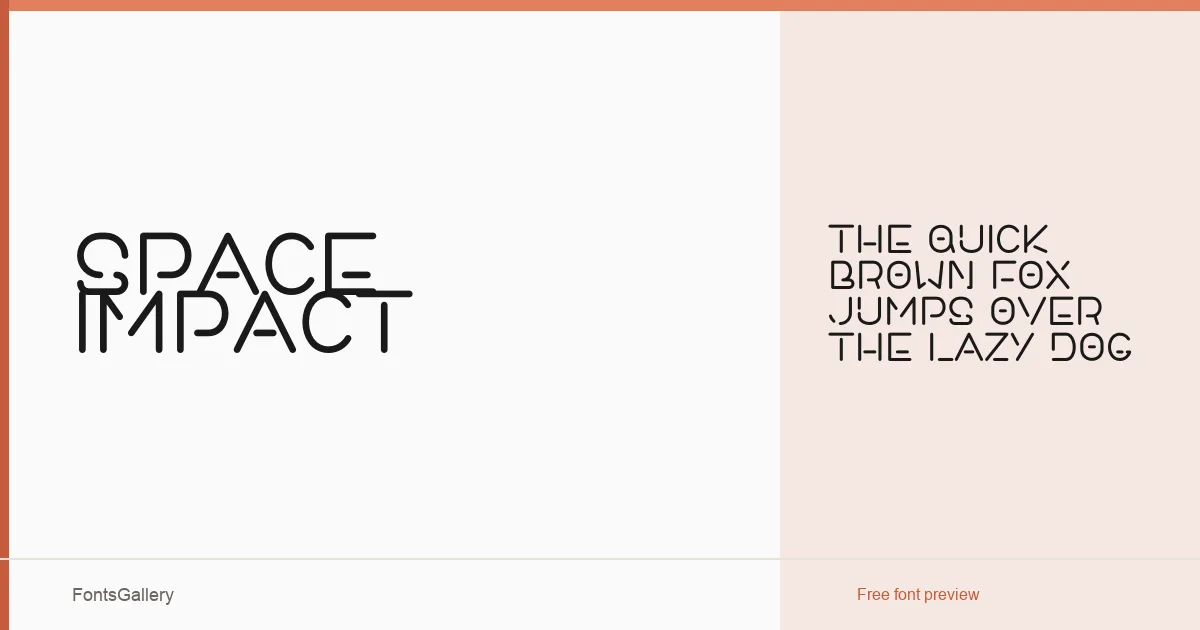
About Space Impact Font
Space Impact is a display typeface crafted by Pian45, designed to command attention with its minimal yet futuristic sensibility. Bold and unmistakably modern, it brings a strong visual presence to any project that demands a cutting-edge aesthetic. Its name and design language evoke the vast, technological frontier of space-age design.
Space Impact features letterforms rooted in a minimal, futuristic approach, stripping away ornamentation in favor of clean, bold geometry that feels distinctly contemporary. The characters carry a confident weight and precision that aligns with modern display typography, making each letter feel purposeful and striking. This balance of boldness and restraint gives the typeface a versatile yet unmistakable personality.
Space Impact excels in high-impact applications such as logos, posters, headlines, branding materials, and website headers where a strong first impression is essential. Its bold, futuristic character makes it particularly well-suited for tech brands, creative agencies, and forward-thinking visual identities. For complementary pairings, consider combining Space Impact with the clean neutrality of Helvetica or the distinctive character of Aresink to achieve a well-balanced typographic hierarchy.